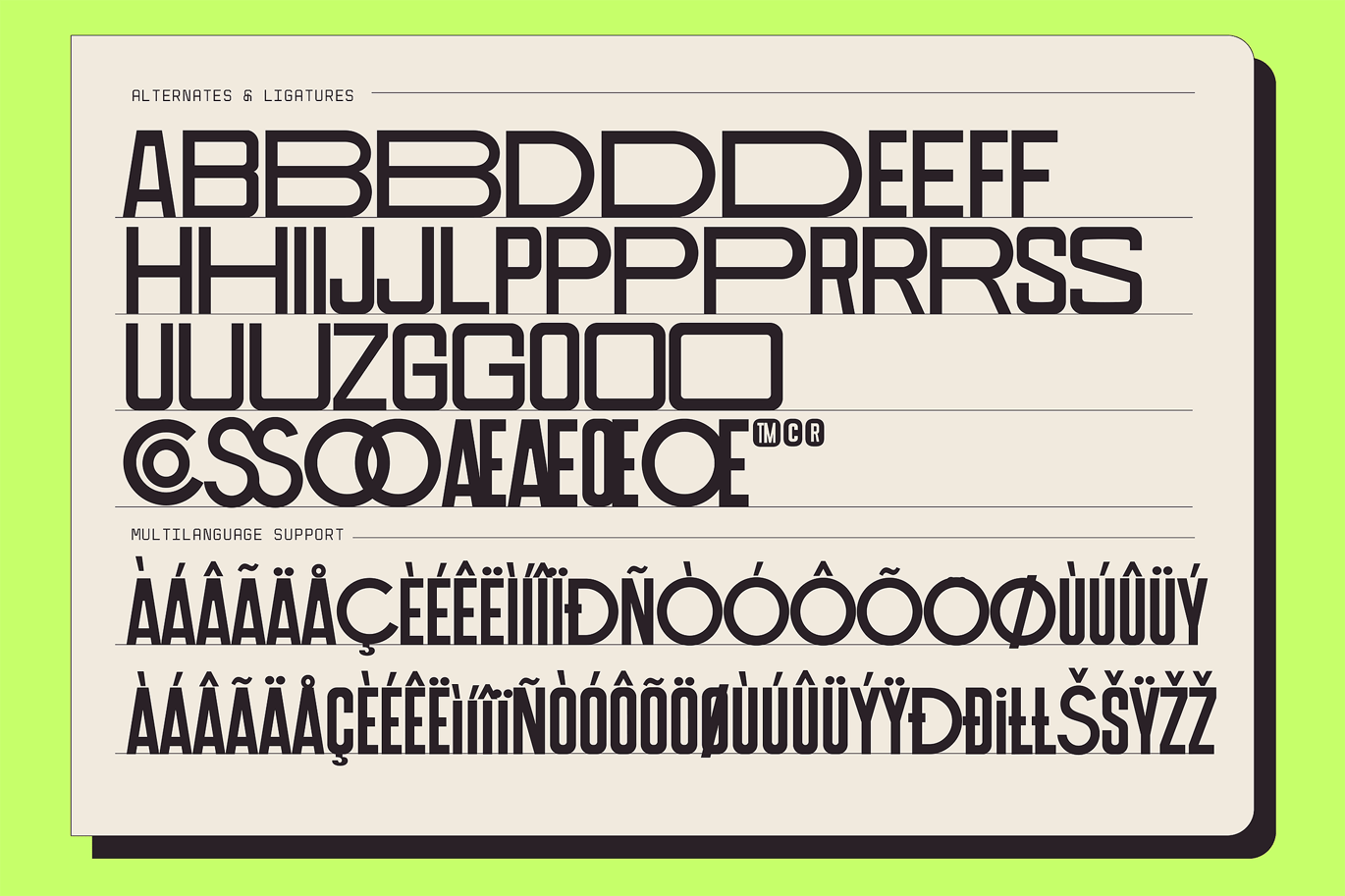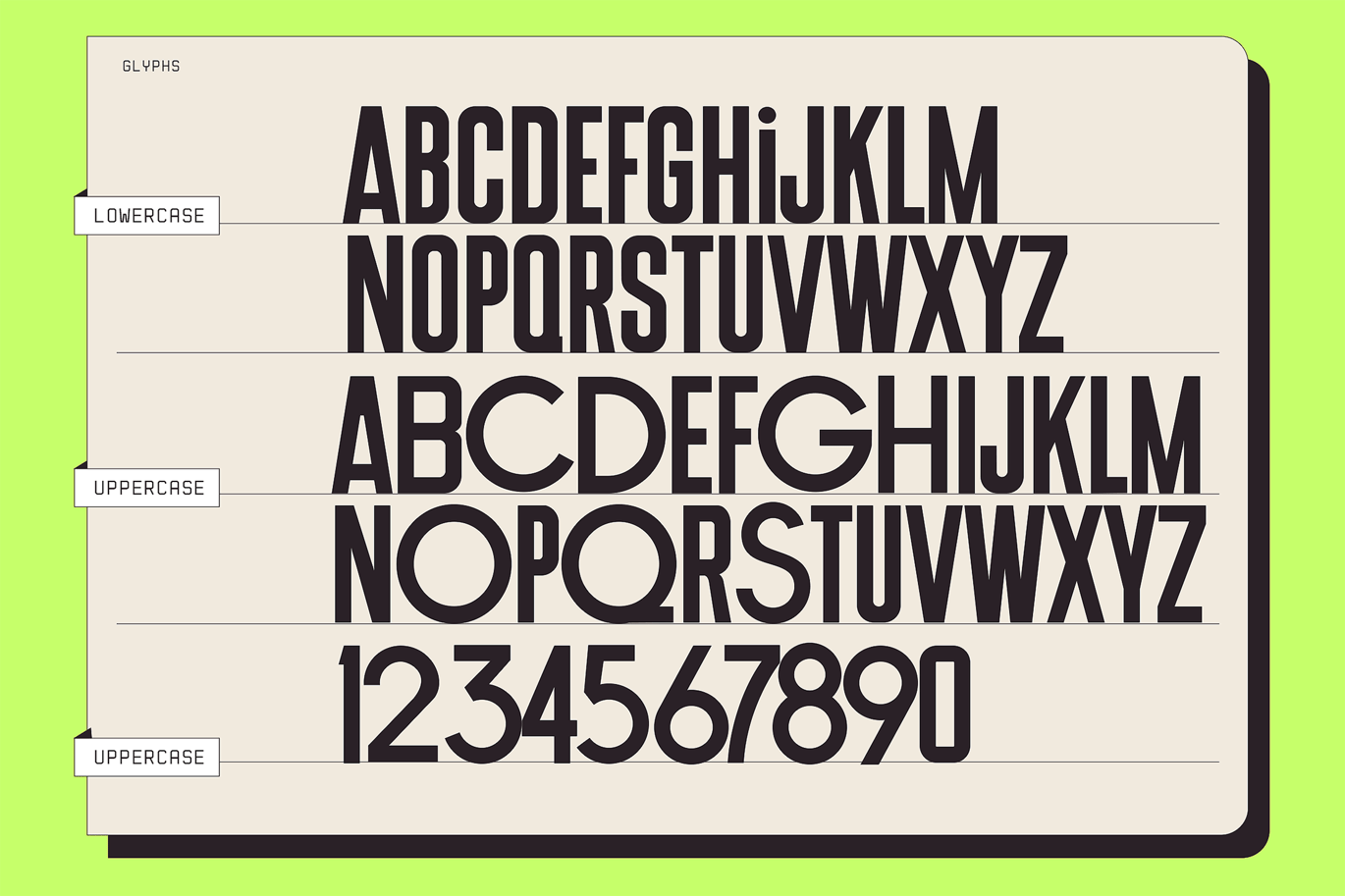
Foun – Modern Retro Condensed 01 Font
Foun – Modern Retro Condensed 01 Font is a versatile typeface ideal for various projects, including Sans-Serif, logos, branding, posters, blog headers, advertisements. The free version includes a full set of uppercase and lowercase letters, available in OTF, TTF format.